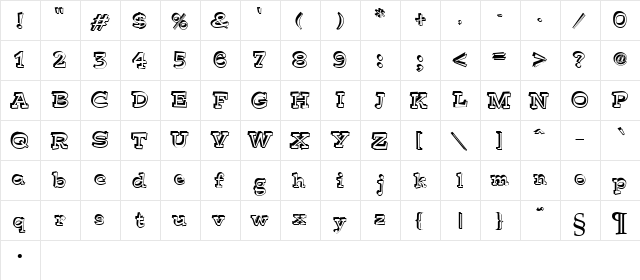
Bunny Lips Normal Font Preview
Bunny Lips Normal
Design Context for Bunny Lips Typeface
Bunny Lips is a composed and adaptable typeface that performs quietly and consistently across a wide range of design contexts.